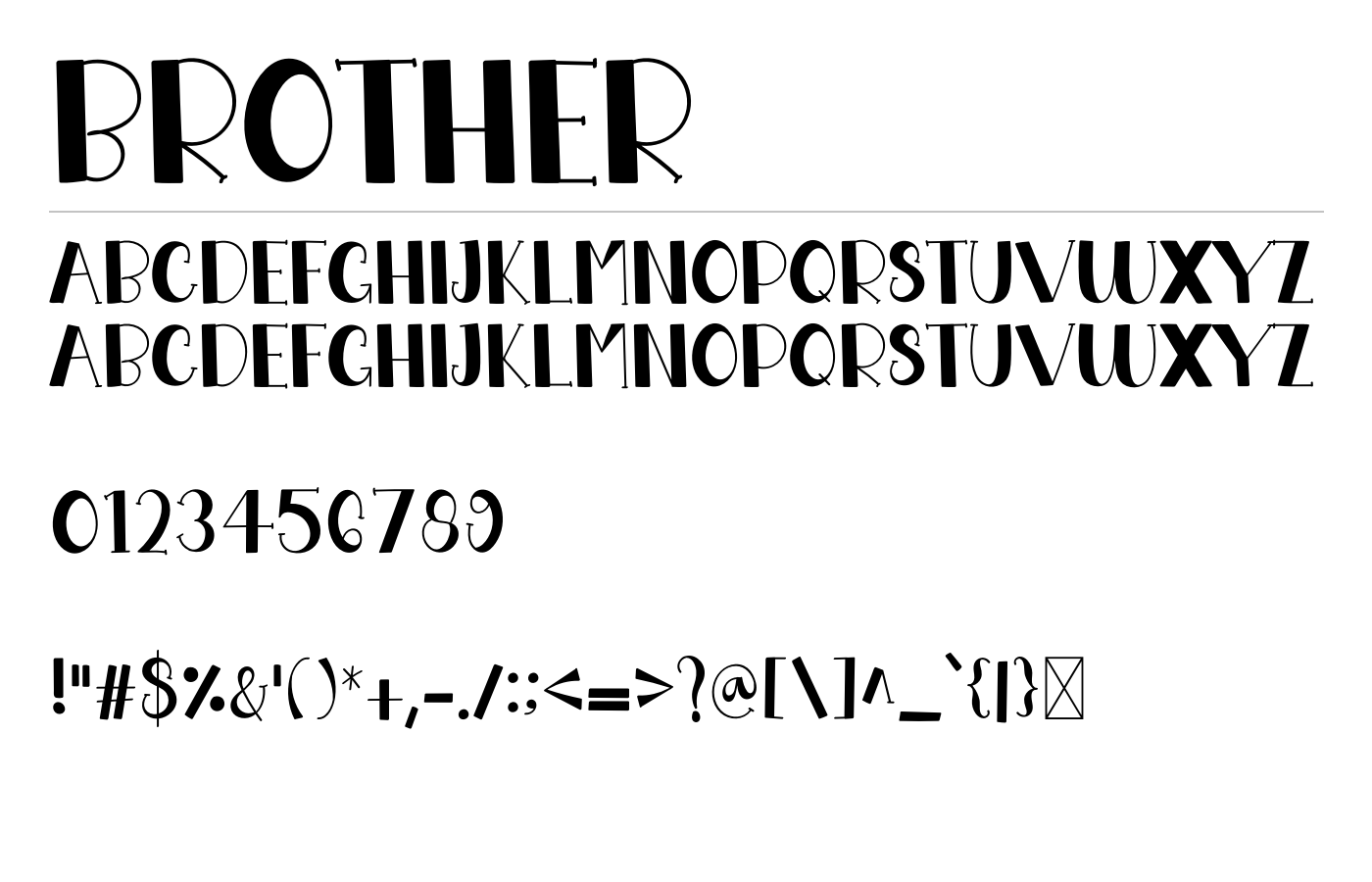
Brother Font is a playful and quirky sans serif typeface with a hand-drawn feel, featuring irregular strokes and varied letter widths that add a lively, informal character. Its tall, narrow letterforms combined with subtle stroke contrast make it ideal for creative headlines, children’s designs, and projects seeking a fun, approachable vibe. This font works best in display settings where personality and uniqueness are key.
Brother Font